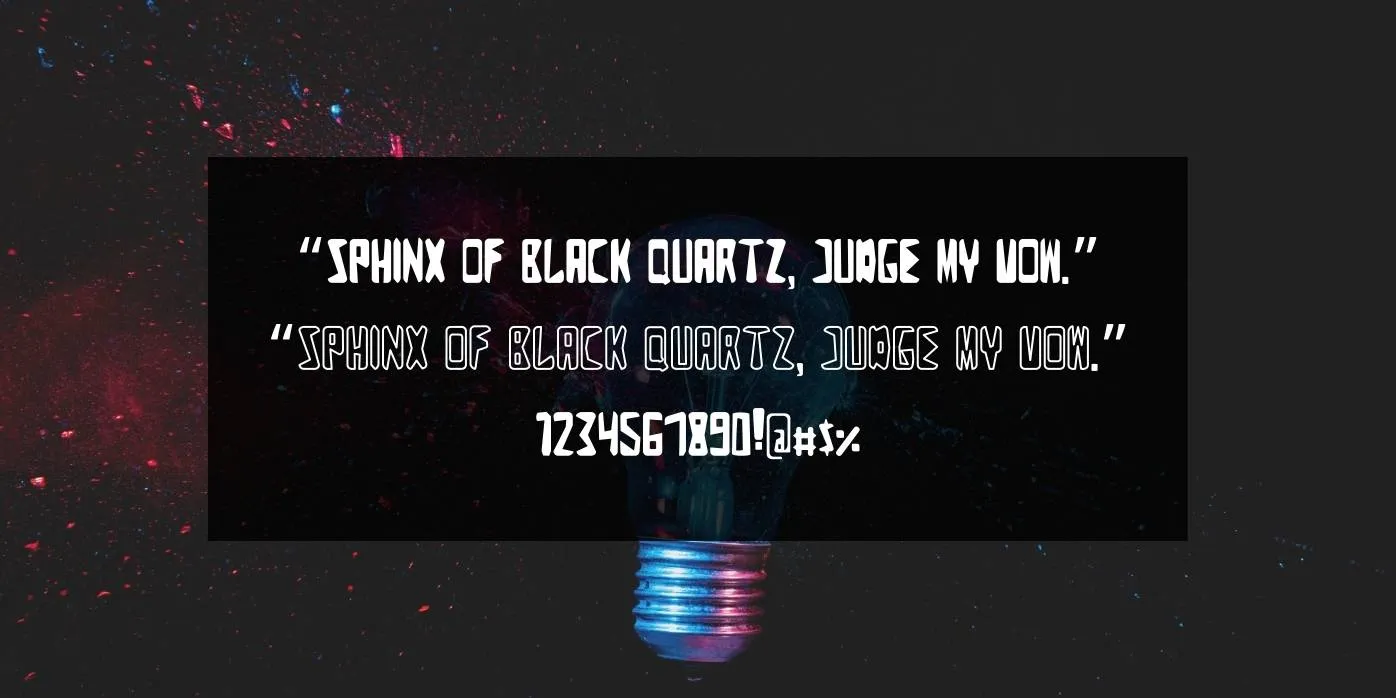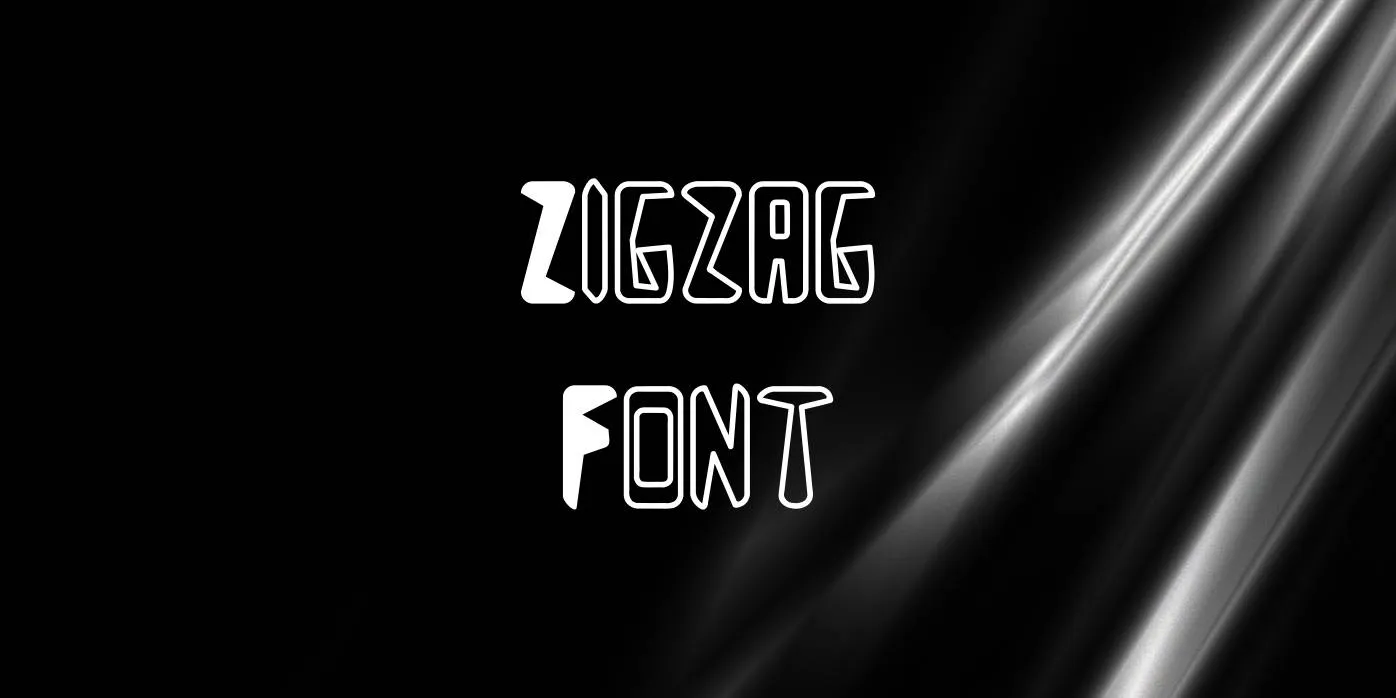
Zigzag Font
In this post, we are going to present Zigzag Font. This awesome typeface was developed by Volcano Type Foundry. This typeface belongs to the techno family. The zigzag-shaped lines in this typeface make it look like a digital font.
This typeface is perfect for headlines, titles, and short paragraphs. This awesome font is available in two styles: Regular and Bold. Each style contains four different weights. Zigzag Typeface is best used for display purposes.
Its wide-space characters make it perfect for headlines and titles. You can also use sega font which is closest to this font family. If you are looking for a techno font with a futuristic vibe, then this font is the perfect choice for your projects. The text generator tool is suitable for a variety of designs.